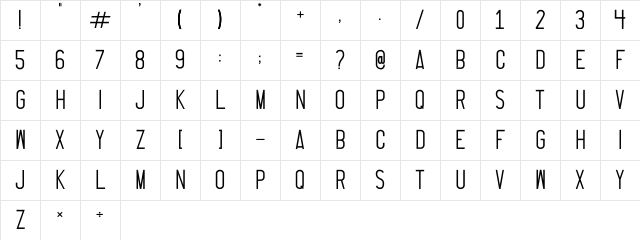
Thruster Regular
Thruster Family
Design Context for Thruster
Thruster is a composed and adaptable typeface that performs quietly and consistently across a wide range of design contexts.